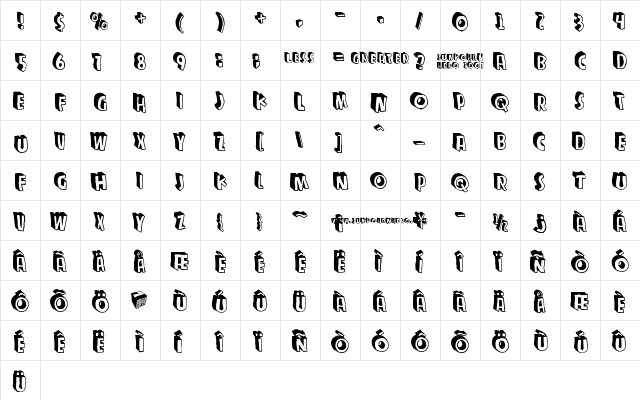
Zupagargonizer T Regular
| Designer | junkohanhero |
Design Context for Zupagargonizer T Typeface
Zupagargonizer T is a composed and adaptable typeface that performs quietly and consistently across a wide range of design contexts.